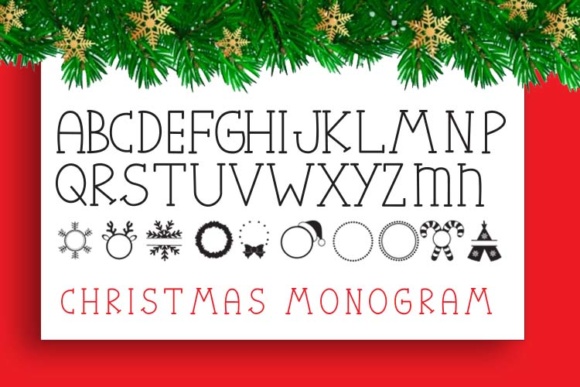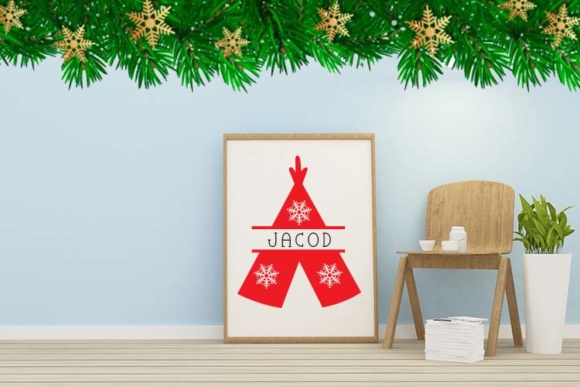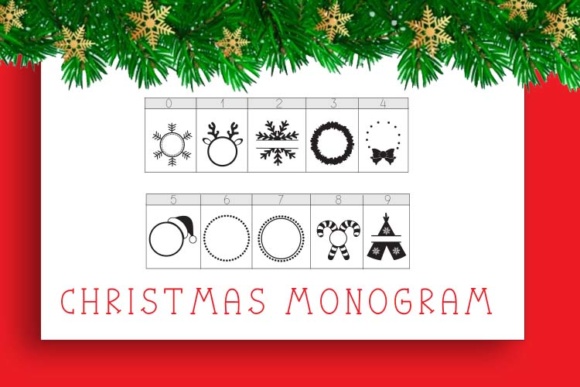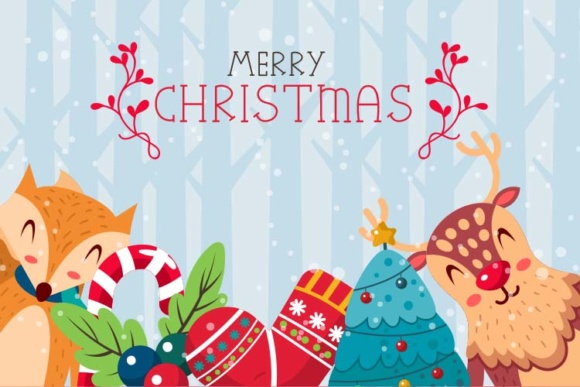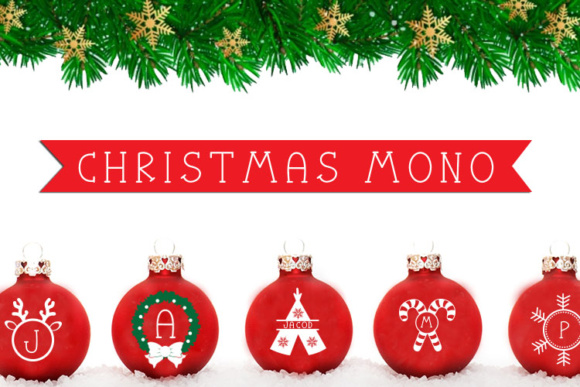
Introducing the Christmas Mono Font: A Festive and Unique Design Element for the Holiday Season
Are you looking for a special design element to make your Christmas decorations and gifts stand out? Look no further than the Christmas Mono Font! This beautiful font features serifs and frames of Christmas monograms, making it the perfect addition to your holiday designs. In this article, we’ll explore the features and benefits of the Christmas Mono Font, and how you can use it to create stunning and personalized designs for the holiday season.
What is the Christmas Mono Font?
The Christmas Mono Font is a unique and special font that is designed specifically for the holiday season. It features serifs and frames of Christmas monograms, which give it a festive and elegant look. The font is perfect for decorating spheres for Christmas trees, customizing gifts, and creating holiday-themed designs. With its beautiful and familiar design, the Christmas Mono Font is sure to evoke the feeling of love and joy that comes with the holiday season.
Features of the Christmas Mono Font
The Christmas Mono Font has several features that make it a standout design element for the holiday season. Some of its key features include:
- Serifs and frames of Christmas monograms: The font features beautiful serifs and frames of Christmas monograms, which give it a festive and elegant look.
- Unique and special design: The Christmas Mono Font is a one-of-a-kind design that is sure to make your holiday designs stand out.
- Perfect for decorating spheres and customizing gifts: The font is perfect for decorating spheres for Christmas trees and customizing gifts for loved ones.
- Easy to use: The Christmas Mono Font is easy to use and can be incorporated into a variety of design projects.
Benefits of Using the Christmas Mono Font
There are several benefits to using the Christmas Mono Font in your holiday designs. Some of the benefits include:
- Adds a personal touch: The Christmas Mono Font allows you to add a personal touch to your holiday designs, making them extra special and meaningful.
- Creates a festive atmosphere: The font’s festive design helps to create a festive atmosphere, perfect for the holiday season.
- Easy to use: The Christmas Mono Font is easy to use and can be incorporated into a variety of design projects, making it a great choice for designers and crafters of all skill levels.
- Versatile: The font can be used in a variety of design projects, from decorating spheres to customizing gifts.
How to Use the Christmas Mono Font
The Christmas Mono Font is easy to use and can be incorporated into a variety of design projects. Here are a few ways you can use the font:
- Decorating spheres: Use the Christmas Mono Font to decorate spheres for your Christmas tree or as a centerpiece for your holiday decor.
- Customizing gifts: Add a personal touch to your gifts by using the Christmas Mono Font to create custom labels or tags.
- Holiday cards and invitations: Use the font to create festive holiday cards and invitations.
- Social media graphics: Use the Christmas Mono Font to create festive social media graphics to share with friends and family.
Tips and Tricks for Using the Christmas Mono Font
Here are a few tips and tricks for using the Christmas Mono Font:
- Experiment with different colors: Try using the Christmas Mono Font in different colors to create a unique and personalized look.
- Combine with other design elements: Combine the font with other design elements, such as holly or snowflakes, to create a festive and eye-catching design.
- Use on different materials: Try using the Christmas Mono Font on different materials, such as paper, fabric, or wood, to create a unique and personalized look.
| Font Name | Christmas Mono Font |
The Christmas Mono Font is a beautiful and unique design element that is perfect for the holiday season. With its serifs and frames of Christmas monograms, it’s sure to add a festive and elegant touch to your holiday designs. Whether you’re a designer or crafter, the Christmas Mono Font is a great choice for creating stunning and personalized designs. So why wait? Download the Christmas Mono Font today and start creating your own festive and memorable designs!